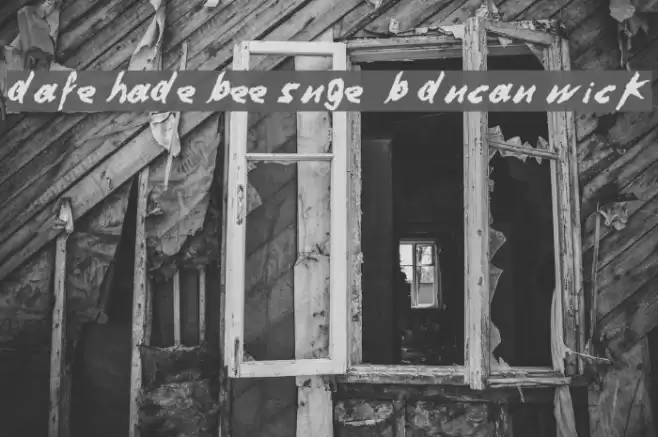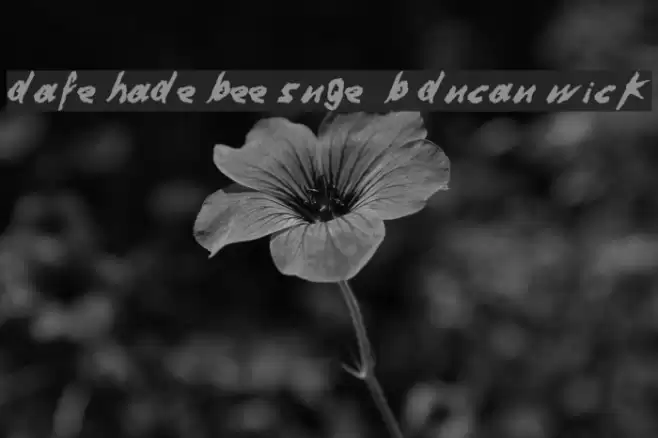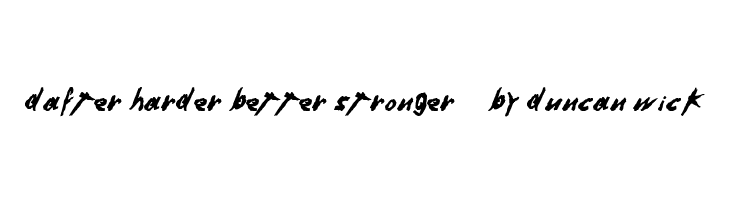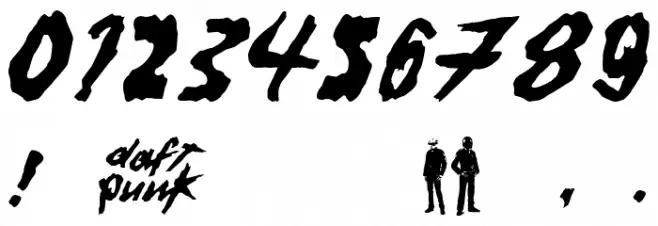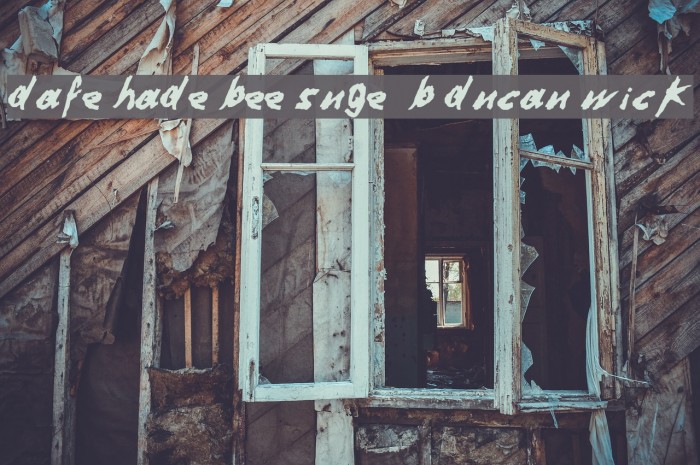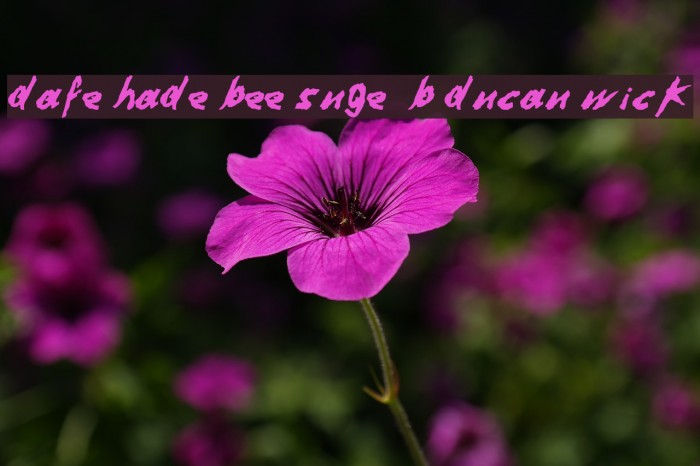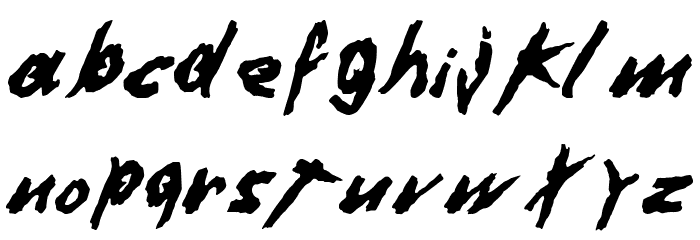
Dafter Harder Better Stronger © by Duncan Wick Font
Dafter Harder Better Stronger © by Duncan Wick Description
This font features a bold, dynamic style with a handwritten appearance, characterized by its jagged, energetic strokes. The letters are irregular and have a raw, expressive quality, reminiscent of graffiti or street art. The uppercase and lowercase letters maintain a consistent style, with a slight slant that adds to the font's lively and informal feel. The numbers are equally bold and maintain the same energetic style as the letters. This font is highly decorative and makes a strong visual impact, suitable for projects that require a bold statement.
A bold, handwritten font with jagged, energetic strokes and a graffiti-like style from Handwritten fonts.
- Proposed Projects: Ideal for music album covers, posters, streetwear branding, and any project that requires a bold, artistic touch.
- Character Spacing: Tight